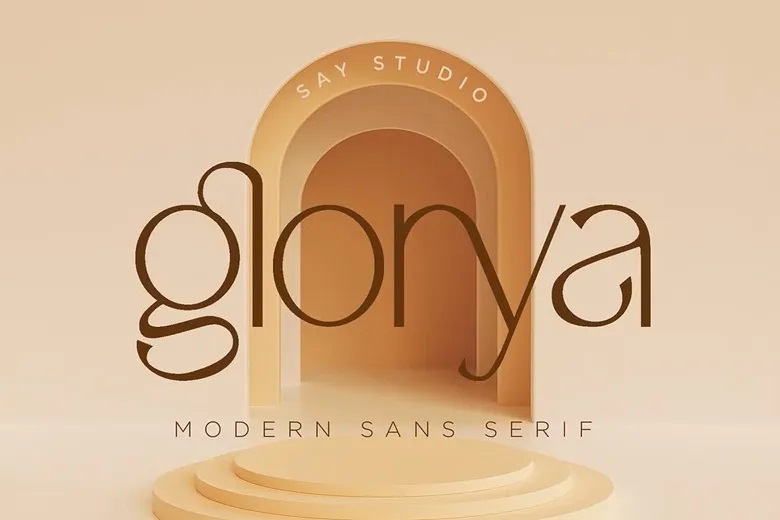
Glorya Font
Glorya is a sans serif font that we use in branding, with an additional ligature in the special shape which adds value of your brand. It is so good to capitalize on designer or product owner that requires solutions to make their design appear more fashionable and contemporary. And specially on satisfy font, We made any ligatures, and any alternate characters to go to your creative needs.
Glorya Sans Serif Font